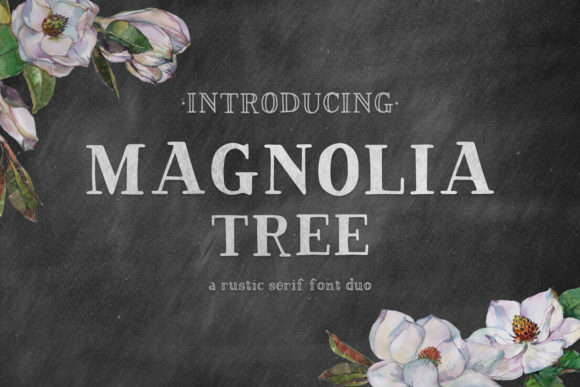
Venture into the realm of elegance and grace with Magnolia Tree Serif, a captivating font duo that intertwines the charm of hand-lettered artistry with the sophistication of a modern serif font. This masterpiece, crafted by the talented BeckMcCormick, transcends the boundaries of ordinary fonts, ushering in a world of visual delight and creative freedom.
Beyond its captivating name, Magnolia Tree Serif embodies the essence of Southern charm, drawing inspiration from the iconic landmark and gardens of Charleston. It's a font that whispers tales of history and heritage, yet possesses a bold and confident spirit that commands attention.
Unlike traditional serif fonts, Magnolia Tree Serif shuns harsh edges and corners, opting for a softer, more inviting aesthetic. Its meticulously crafted curves and delicate flourishes evoke a sense of warmth and familiarity, making it the perfect choice for projects that demand a personal touch.
With Magnolia Tree Serif at your disposal, you can effortlessly transform your creative visions into tangible realities. Whether you're crafting a heartfelt wedding invitation, designing a captivating logo, or creating enchanting signage, this font duo will elevate your work to new heights.
The versatility of Magnolia Tree Serif knows no bounds. It seamlessly adapts to a myriad of projects, effortlessly blending with your artistic style and vision. Let your creativity soar as you explore the limitless possibilities that await with this typographic gem.
Experience the allure of Magnolia Tree Serif, a font that beckons you to embrace the beauty of Southern charm and modern elegance. Allow your words to dance upon the page, imbued with a touch of sophistication and a dash of whimsy.